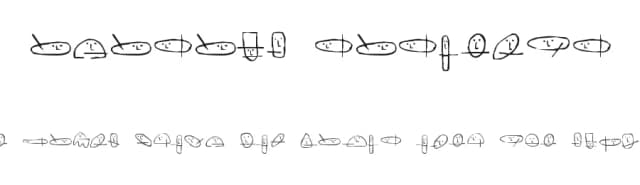
About Between my ears Font
Between my ears is a dingbat font designed by Gloomnshloom. It includes 54 glyphs, a regular weight, TTF (TrueType) format, and 89 languages. Between my ears is free to download; check the license details on this page before commercial use. Dingbat fonts like Between my ears work best for icons, ornaments, bullet points, and decorative accents.
Between my ears Font is a versatile dingbats font that works for both headings and body text. Pair it with a contrasting sans-serif or serif font to add visual interest and a clear distinction between titles and body copy.
Between my ears Font
by Gloomnshloom
Between my ears Font is a dingbats typeface by Gloomnshloom, ideal for logos, invitations, branding, and creative projects.